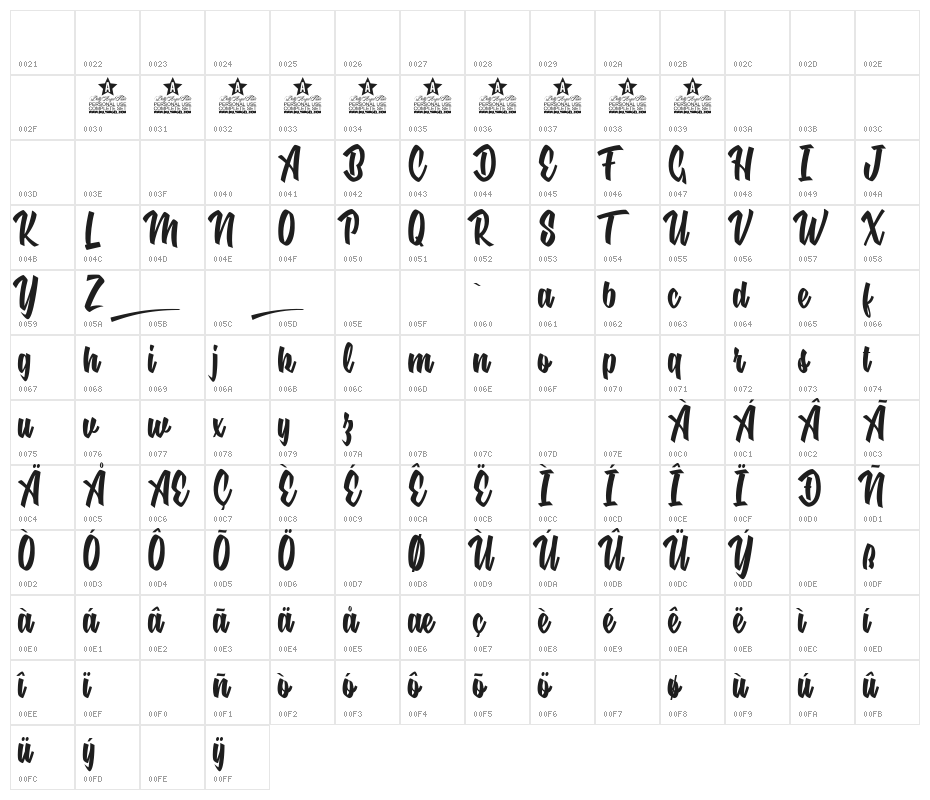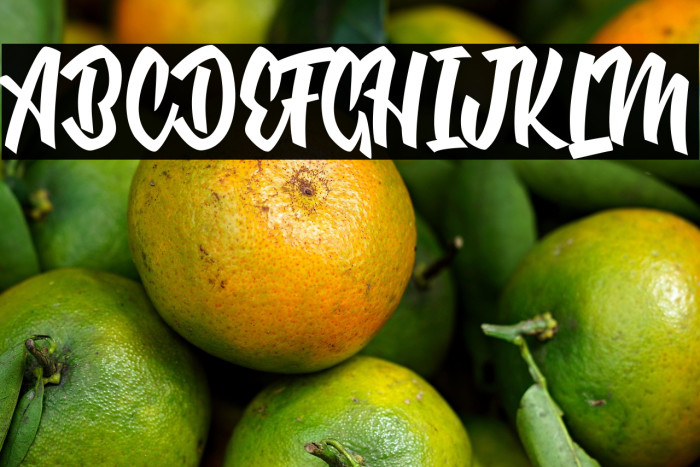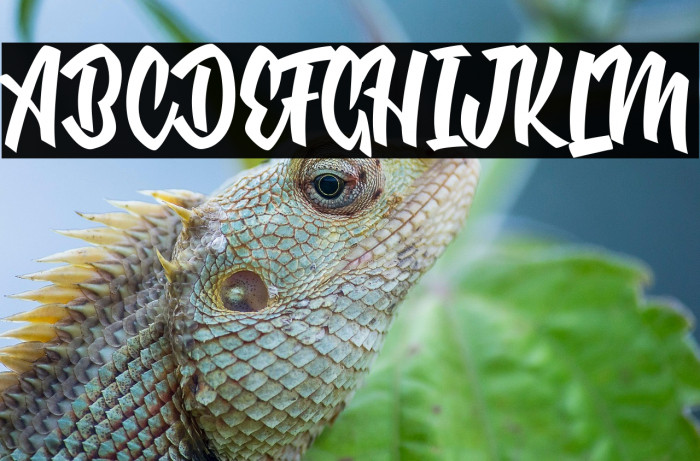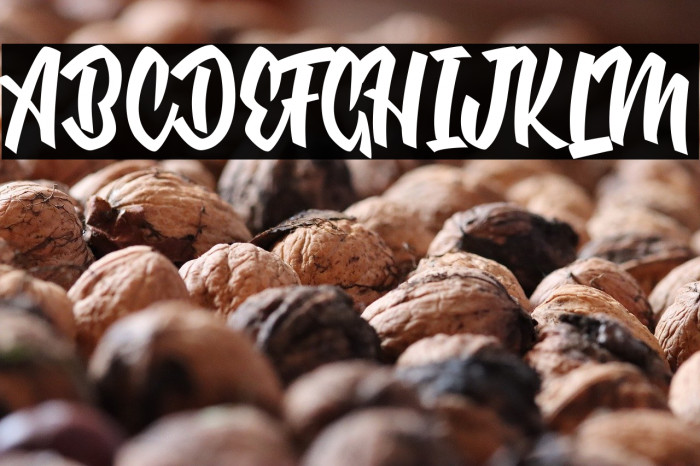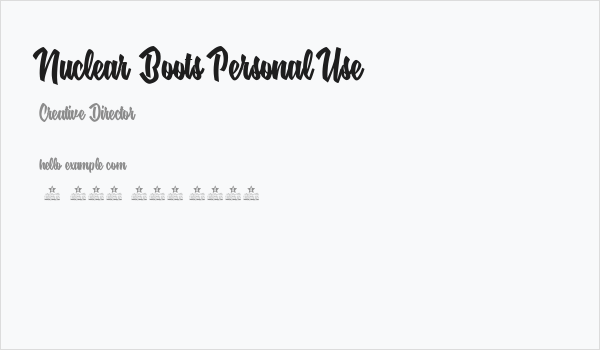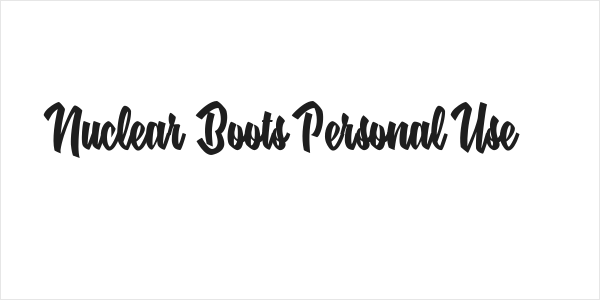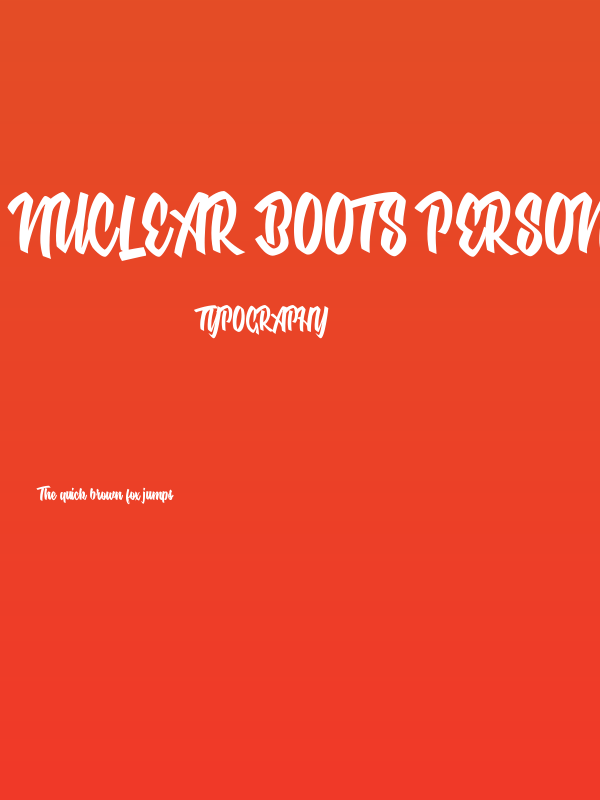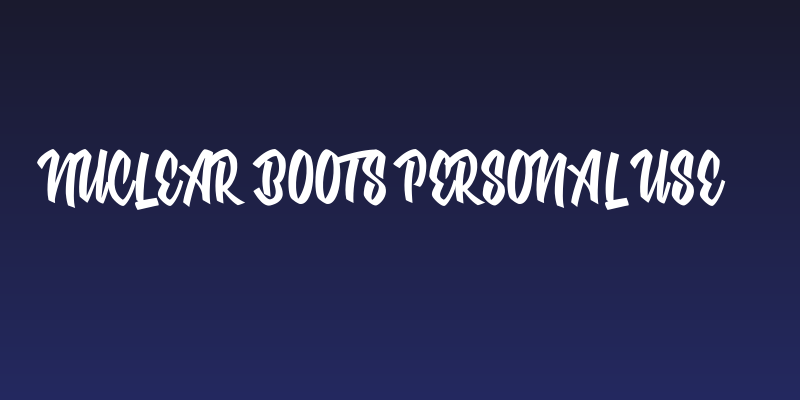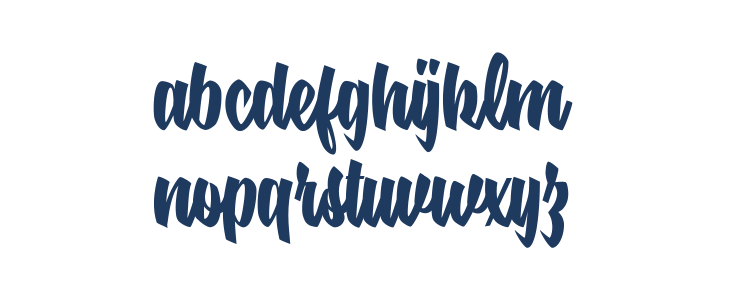
Nuclear Boots Personal Use Font
Nuclear Boots Personal Use Description
This font features a bold and dynamic script style with a strong presence. The characters are designed with a brush-like appearance, giving them a sense of movement and fluidity. The uppercase letters are particularly striking, with exaggerated curves and sharp angles that create a sense of energy. The lowercase letters maintain this fluidity, with smooth transitions and a cohesive look. The numbers and special characters are consistent with the overall style, ensuring a harmonious appearance across all text elements. This font is ideal for projects that require a bold and expressive touch.
| Proposed Projects | Ideal for branding, posters, headlines, and any design requiring a bold, expressive touch. |